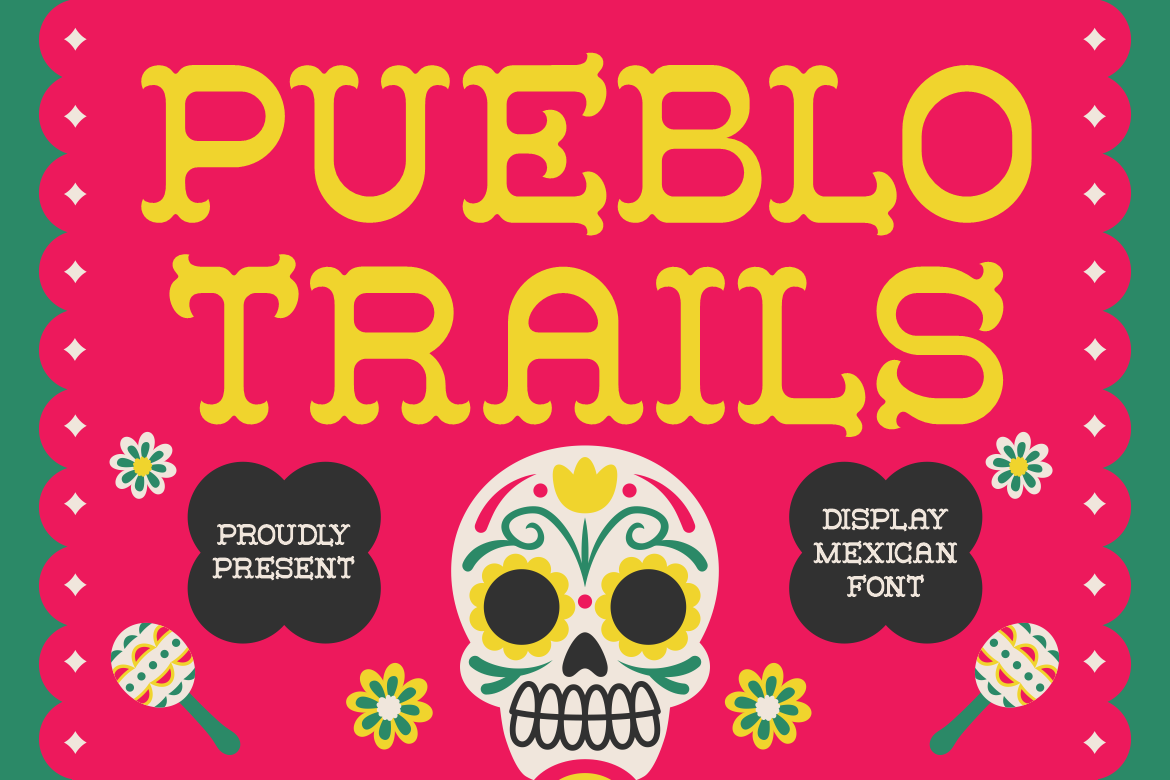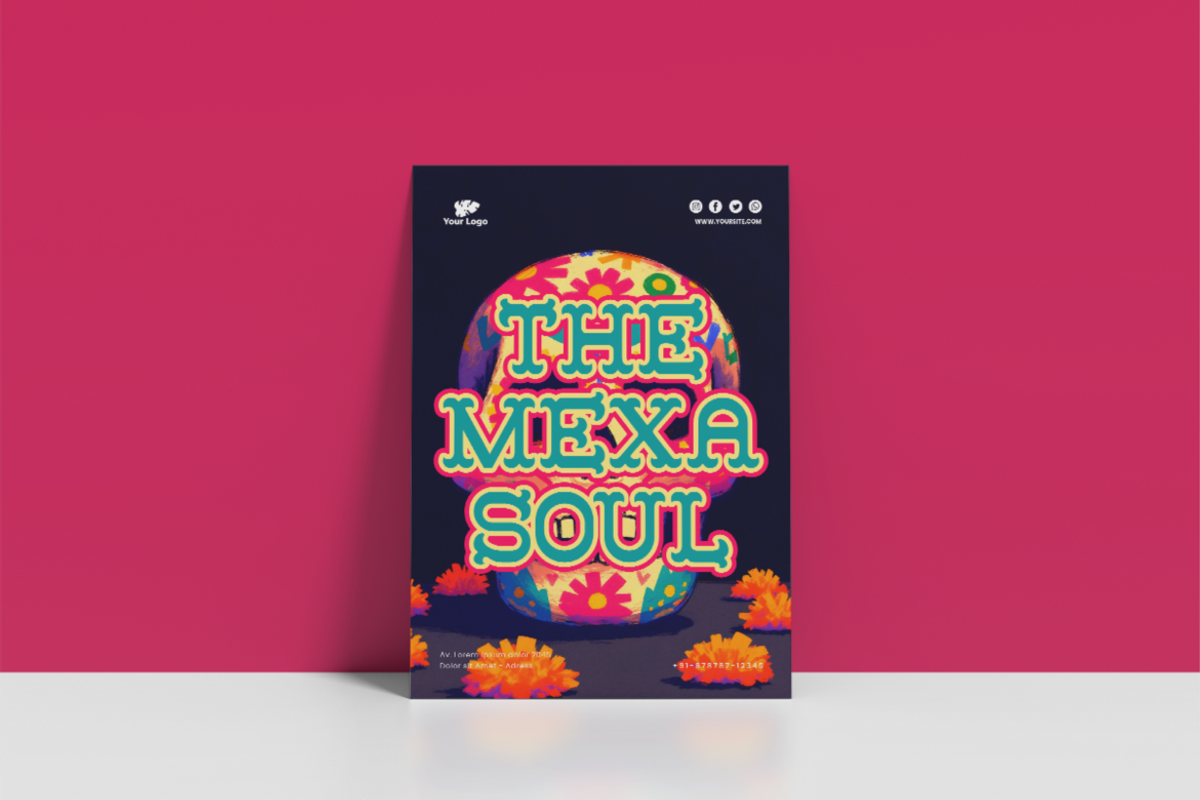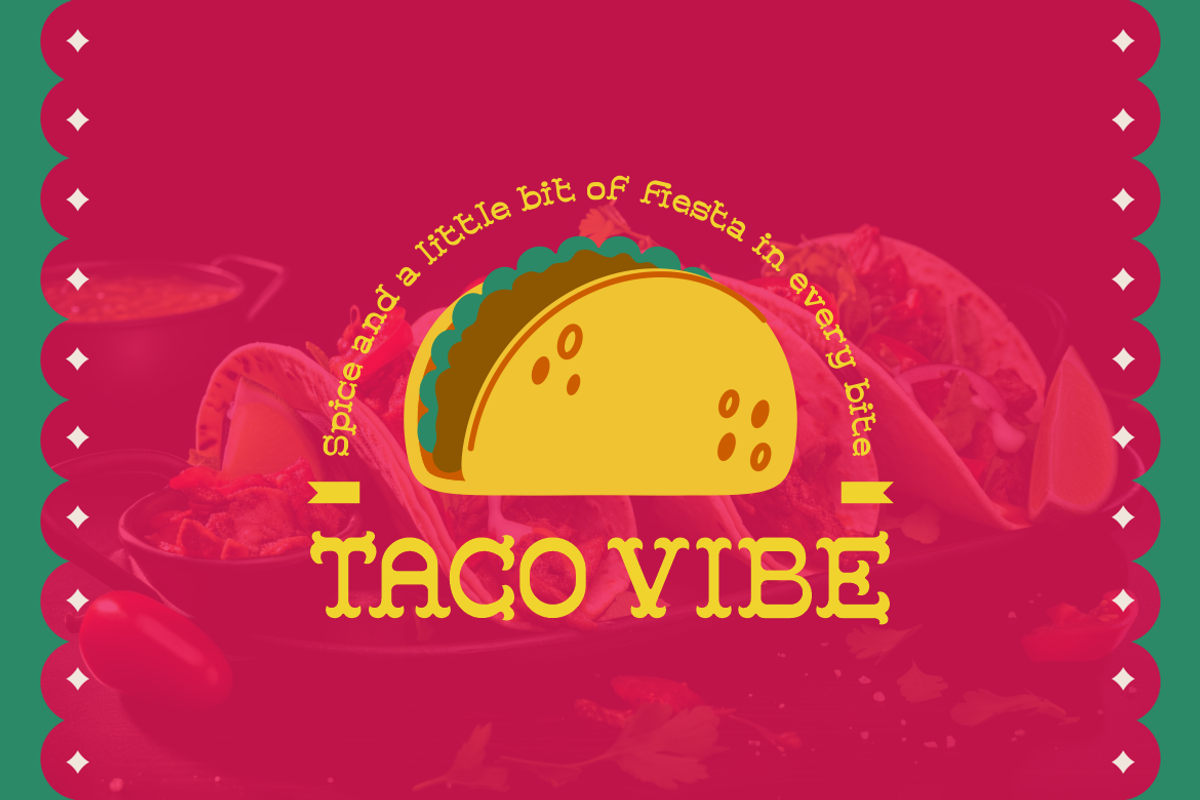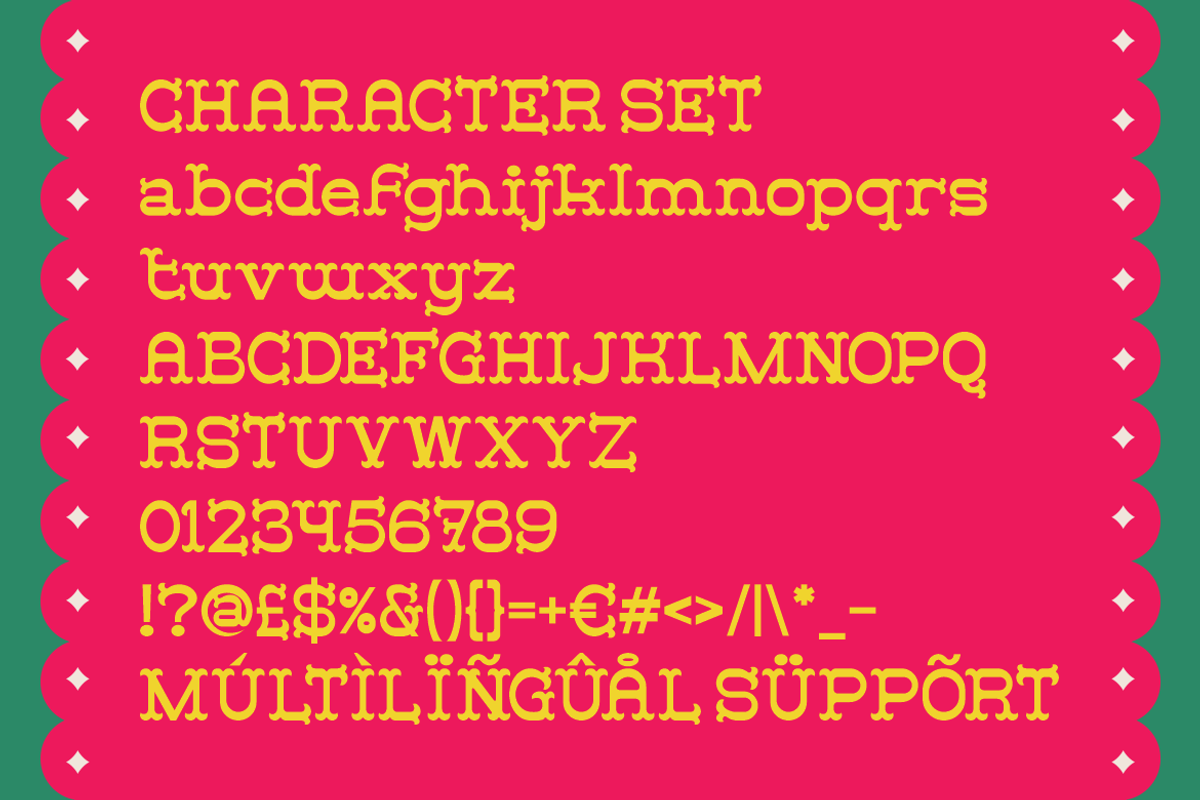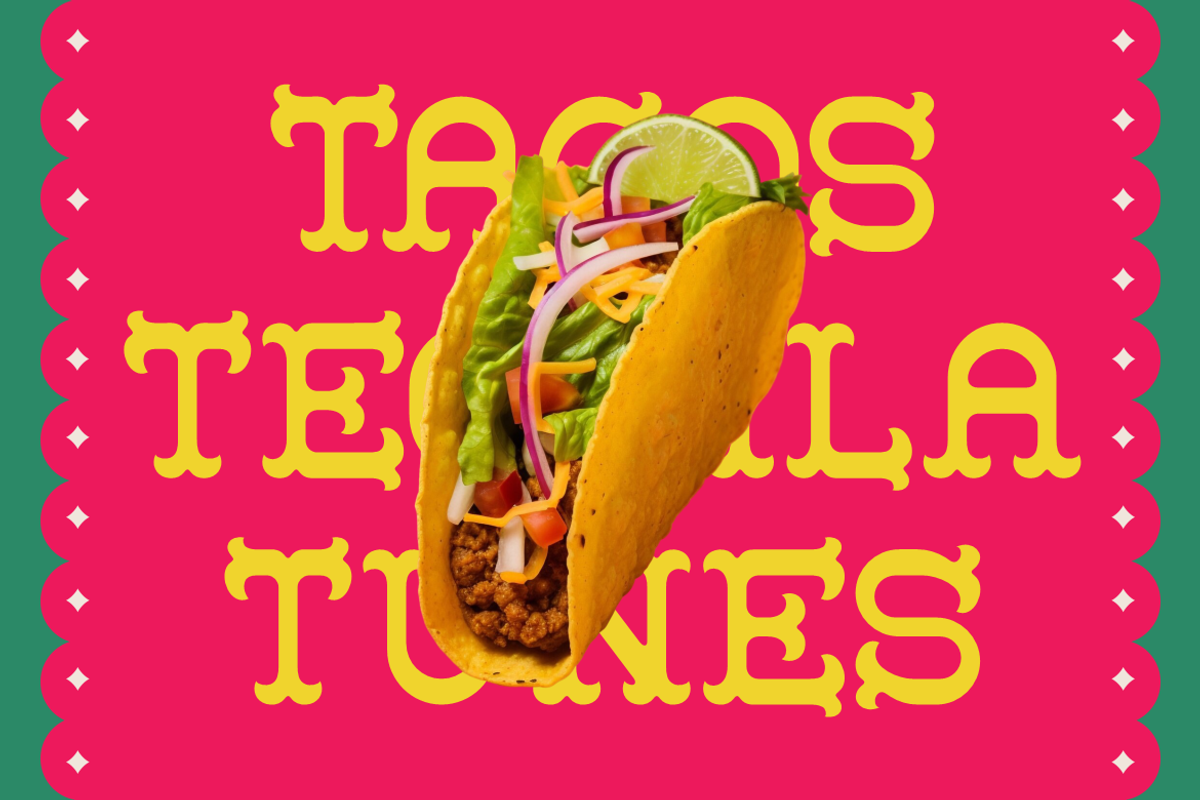
Pueblo Trails Mexican Font
Pueblo Trails Mexican Font is a lively and authentic display typeface inspired by traditional Mexican lettering. Its thick, structured shapes are balanced with decorative serifs that create a handcrafted, festive appearance. The tall letterforms and wide spacing enhance readability while preserving an ornamental charm. The font’s bold design feels strong yet approachable, making it ideal for expressing warmth, tradition, and cultural pride. Every curve and serif is crafted to evoke the spirit of Mexican heritage—vibrant, expressive, and full of life. Pueblo Trails Mexican Font brings together historical aesthetics and modern usability, creating a timeless typographic style for contemporary projects.
Perfect for restaurant branding, taco shops, event posters, packaging, and handcrafted labels, this font adds energy and authenticity to any design. It works beautifully in festival logos, food advertising, invitations, or editorial covers that aim to celebrate culture and color. The structured yet decorative form makes it suitable for both large headlines and short phrases that need impact. Pueblo Trails Mexican Font captures the essence of festive tradition, blending cultural artistry with design versatility. For designers seeking a font that radiates personality and Mexican soul, this typeface is a bold and joyful choice.